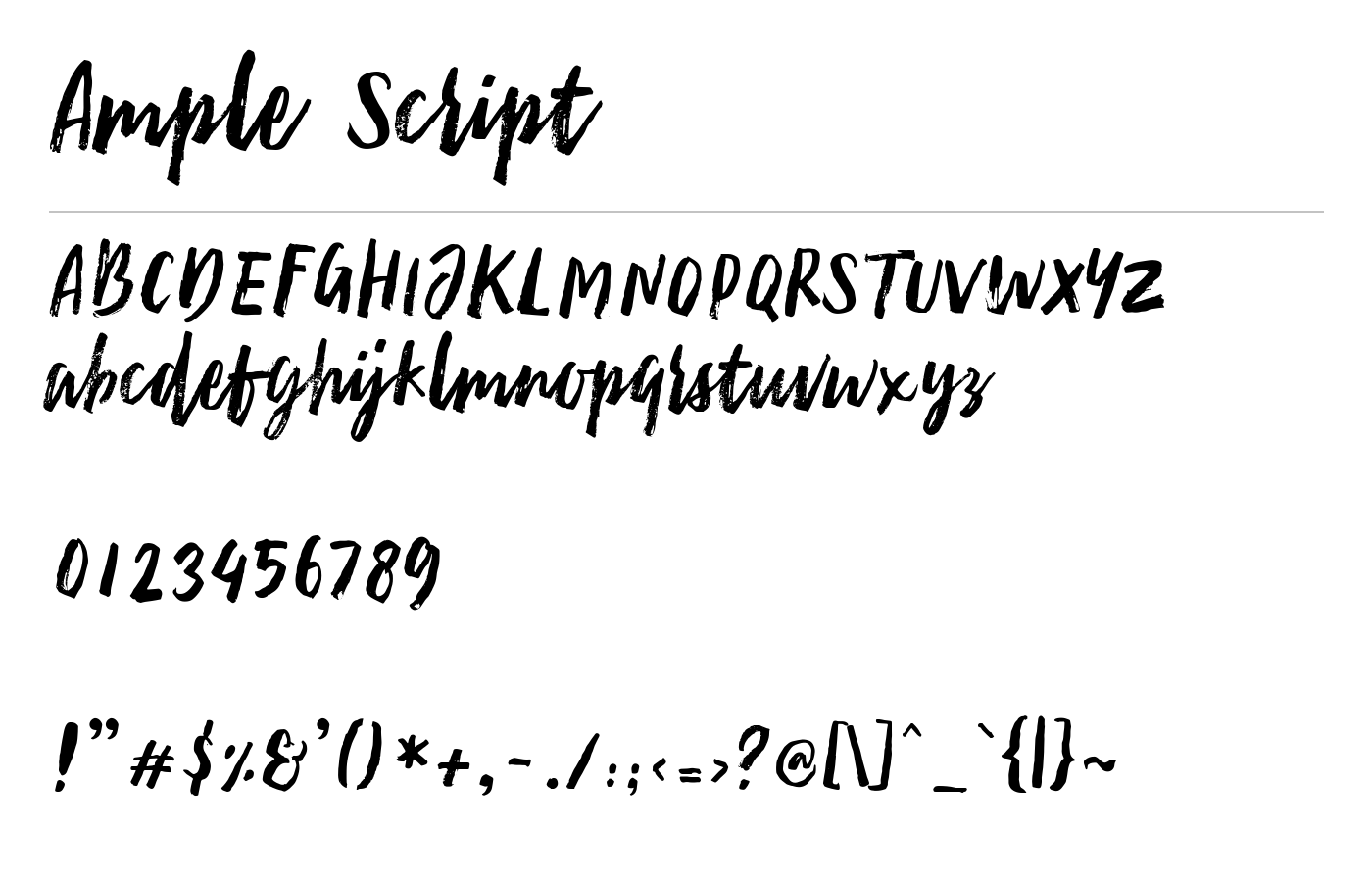
Ample Script is a lively and textured handwritten script font that exudes a casual yet artistic vibe. Its uneven strokes and rough edges give it a bold, expressive character, making it perfect for creative projects that want a personal, hand-crafted feel. Ideal for logos, posters, and branding, it adds a dynamic, energetic touch that's both modern and approachable.
Ample Script Font
About Ample Script Font
| Font family | Ample Script Font |
| Designer | Ryan Murdhana |